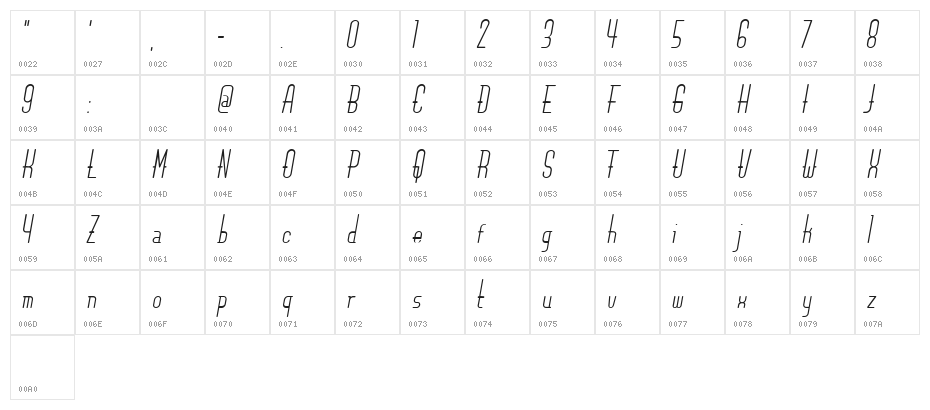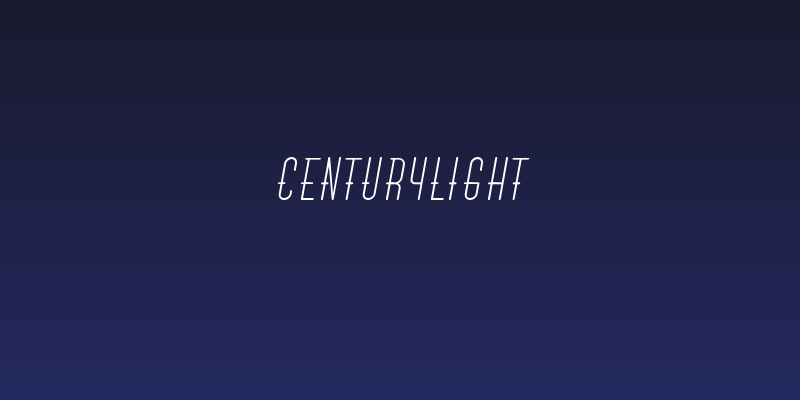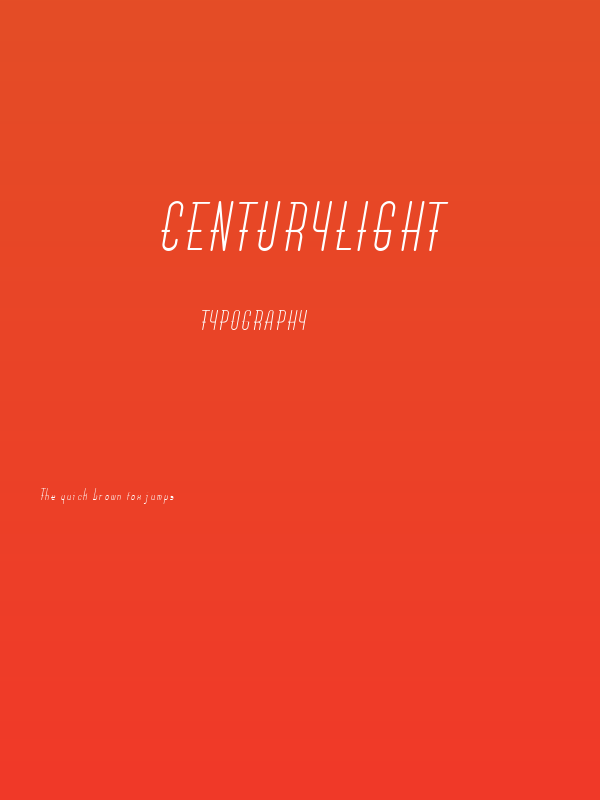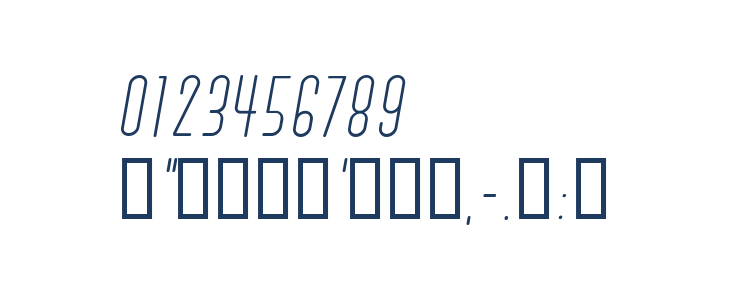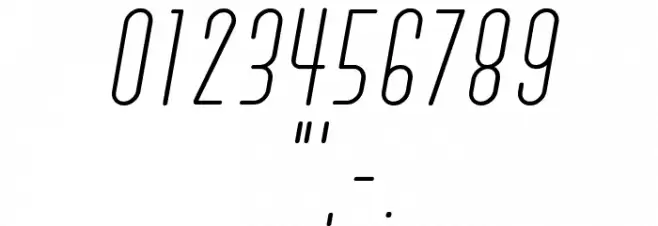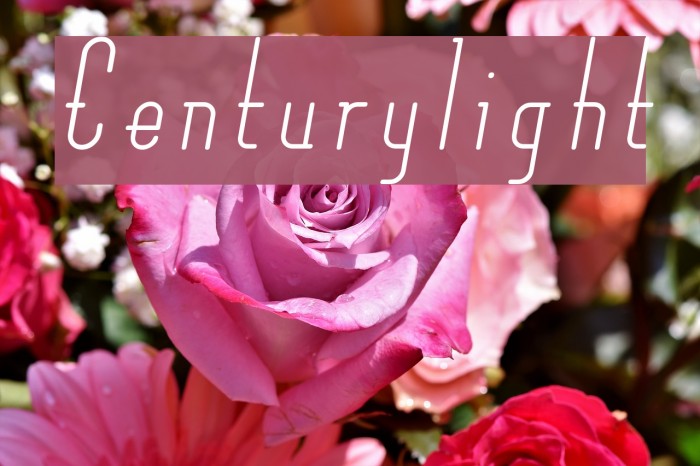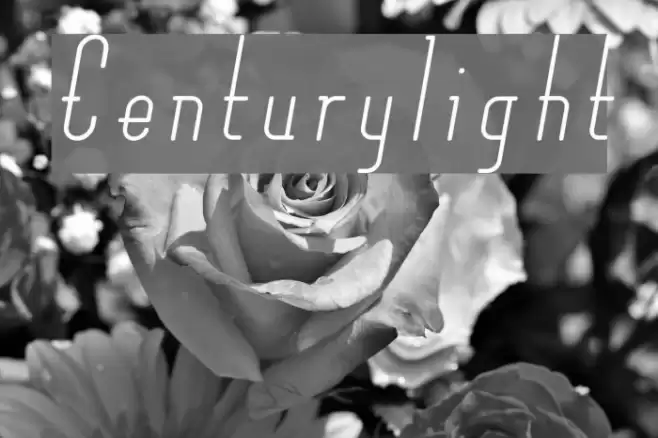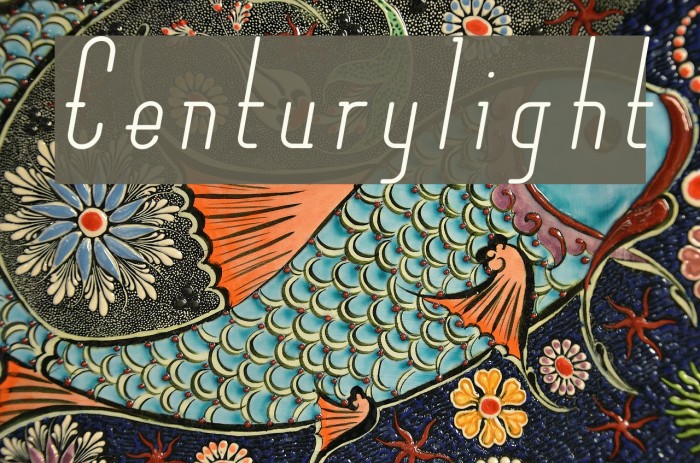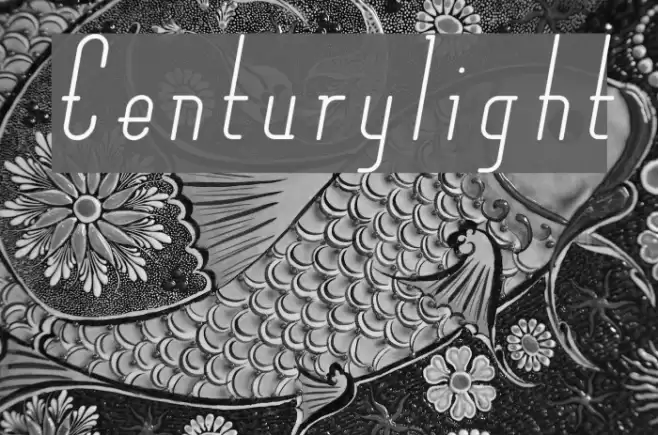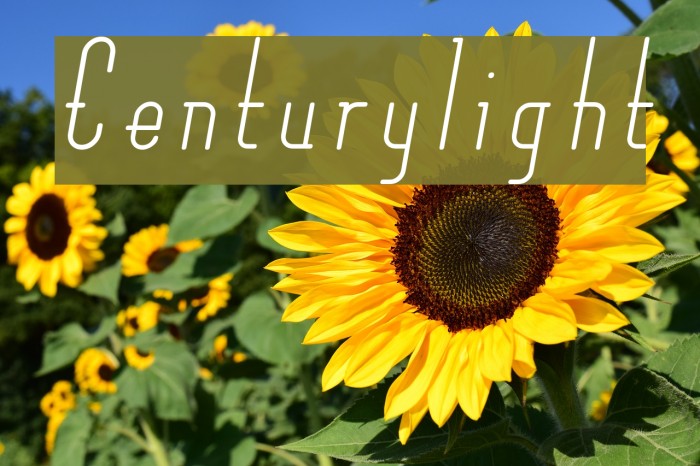
Centurylight Font
Centurylight Description
This font features a sleek, modern design with elongated, narrow characters that convey a sense of elegance and sophistication. The uppercase letters are tall and slender, with a consistent stroke width that gives them a clean and streamlined appearance. The lowercase letters maintain this aesthetic, with a slightly more playful and approachable feel. The numerals are similarly styled, ensuring a cohesive look across all characters. The special characters are thoughtfully integrated, maintaining the font's overall sleek and modern vibe. This font's design is ideal for projects that require a contemporary and stylish touch.
| Proposed Projects | Ideal for fashion magazines, luxury brand logos, modern website headers, and elegant invitations. |